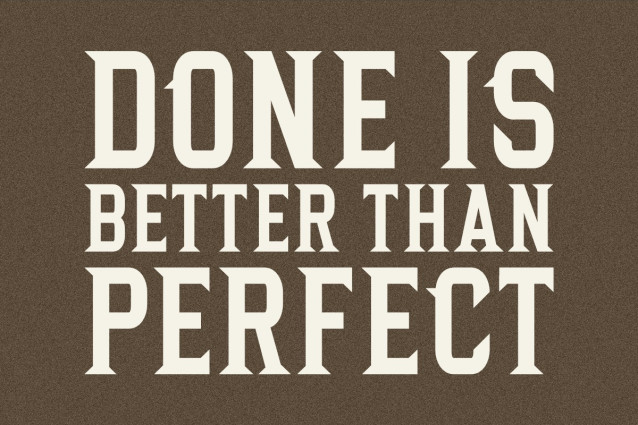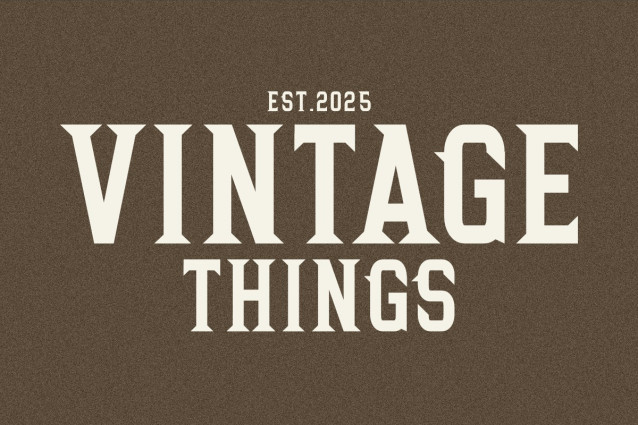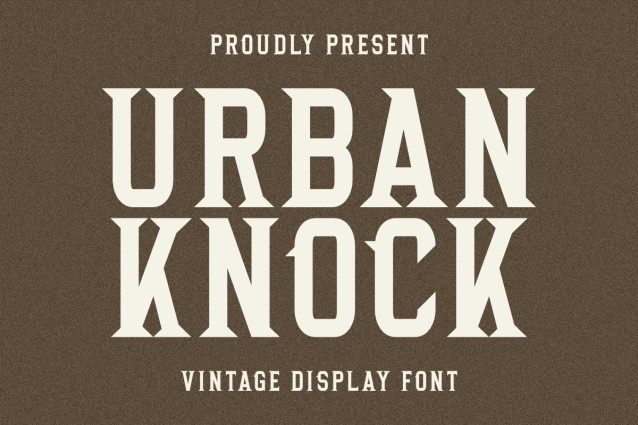
Urban Knock Font
Urban Knock Font is a bold vintage display font with a strong and rugged character, perfect for making your designs stand out. Its classic block style and sharp edges give a retro yet timeless feel, making it ideal for Cricut projects, sublimation designs, and Print On Demand products such as t-shirts, mugs, tote bags, posters, and signage. Whether you’re creating sports team graphics, western-style apparel, or powerful quotes, Urban Knock delivers impact and versatility.